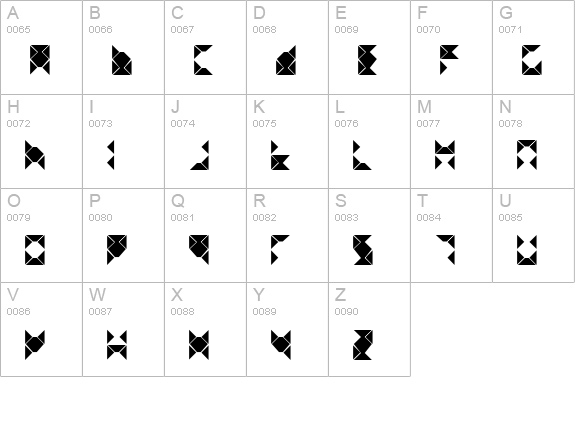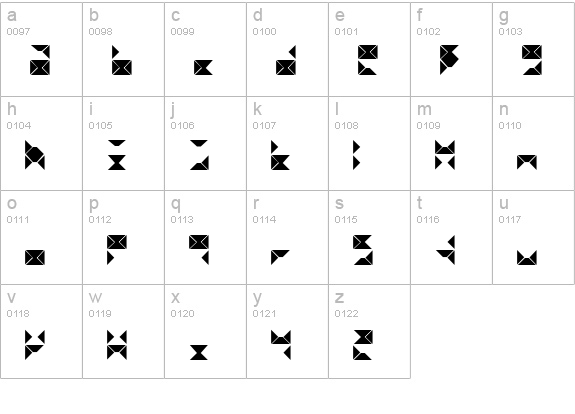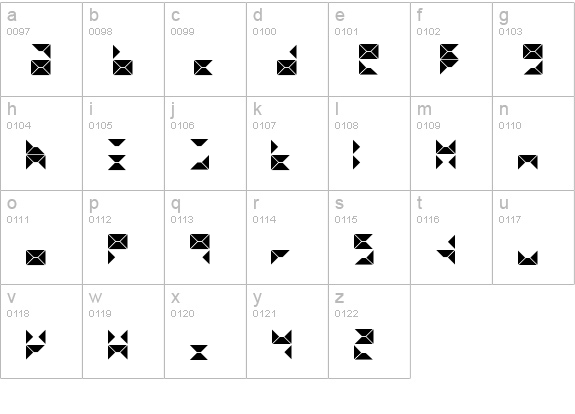
Triangel font is a stunning typeface that effortlessly combines elegance and modernity. With its sleek lines and geometric shapes, this font is perfect for adding a touch of sophistication to any design project. Whether you're creating a stylish logo, designing a captivating website, or crafting eye-catching print materials, Triangel font will elevate your work to new heights. One of the best things about Triangel font is that it is available for free. Yes, you read that right! This incredible font can be downloaded at no cost from FontsMarket.com, making it accessible to designers and creatives of all budgets. Now, you can enjoy the beauty and versatility of Triangel font without breaking the bank. Not only is Triangel font visually appealing, but it also boasts excellent legibility. Its clean and crisp letterforms ensure that your message will be effortlessly conveyed to your audience, even at small sizes. Whether you're using it for headlines, body text, or captions, Triangel font will always deliver clarity and impact. Another standout feature of Triangel font is its extensive character set. It includes a wide range of glyphs, including alternate characters, ligatures, and special symbols, allowing you to add a unique and personal touch to your designs. With Triangel font, the possibilities are truly endless. So why wait? Don't miss out on this incredible opportunity to enhance your designs with the beauty and versatility of Triangel font. Head over to FontsMarket.com now and download this fantastic font for free. Elevate your design game and make a lasting impression with Triangel font.